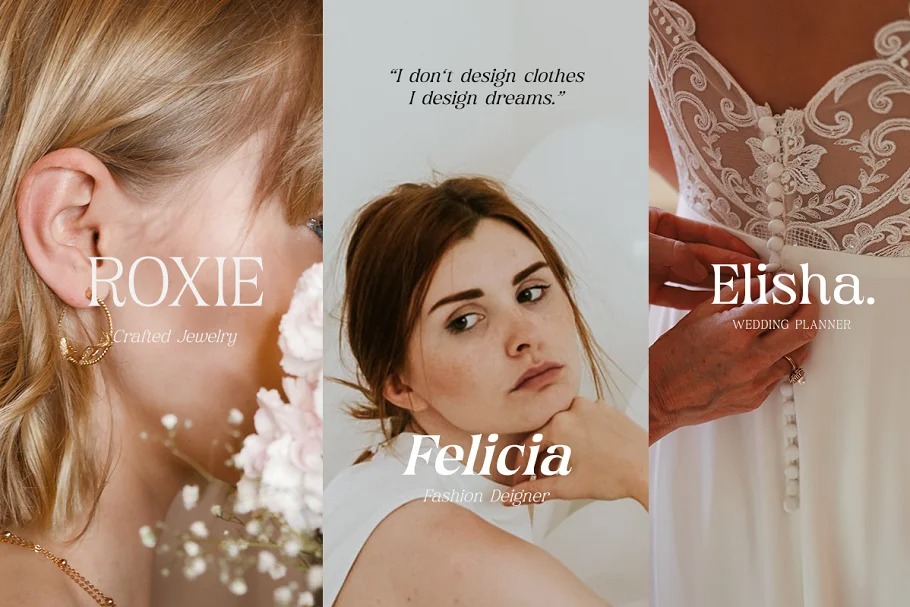
Chiefland Font
Chiefland Serif Font
This is a new retro serif typeface inspired from retro typography and lettering in the 70’s and 80’s combine with bold typography style. It has 12 weight styles which you can play around to match your project, whether for a standout headline, or for a tagline, you name it. Perfect to be applied to the other various formal forms such as invitations, labels, logos, magazines, books, greeting / wedding cards, packaging, fashion, make up, stationery, novels, labels or any type of advertising purpose.